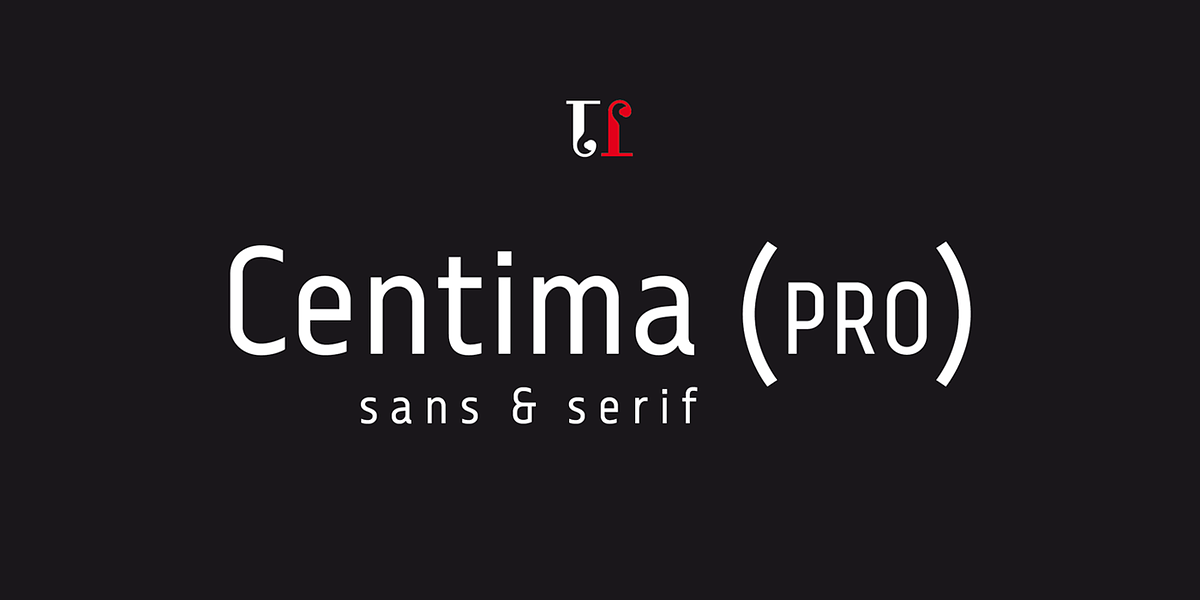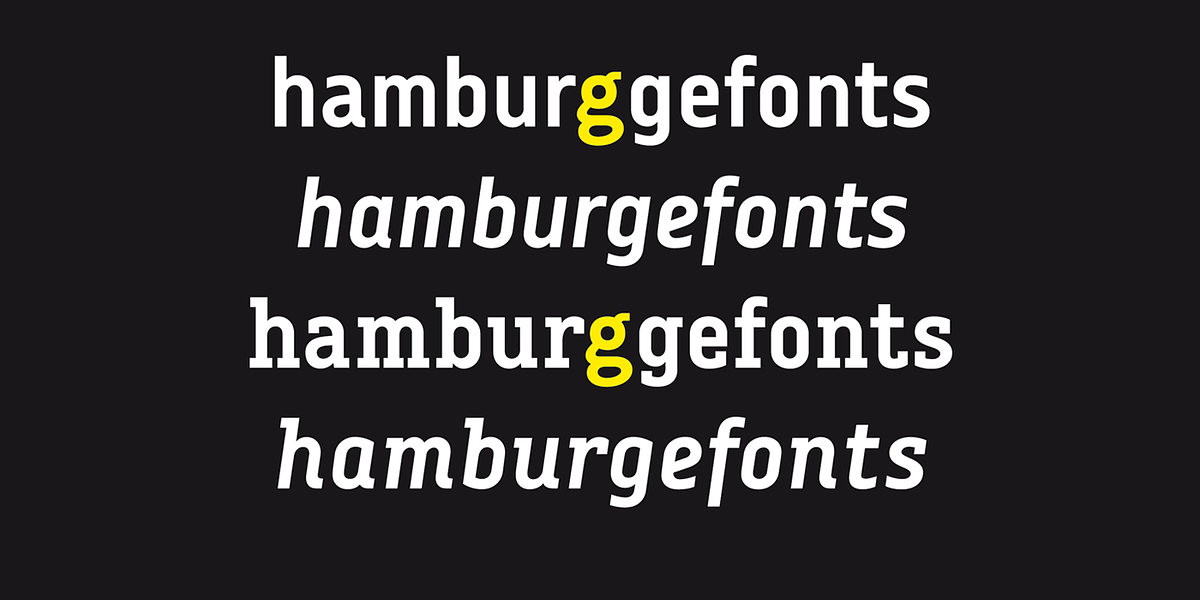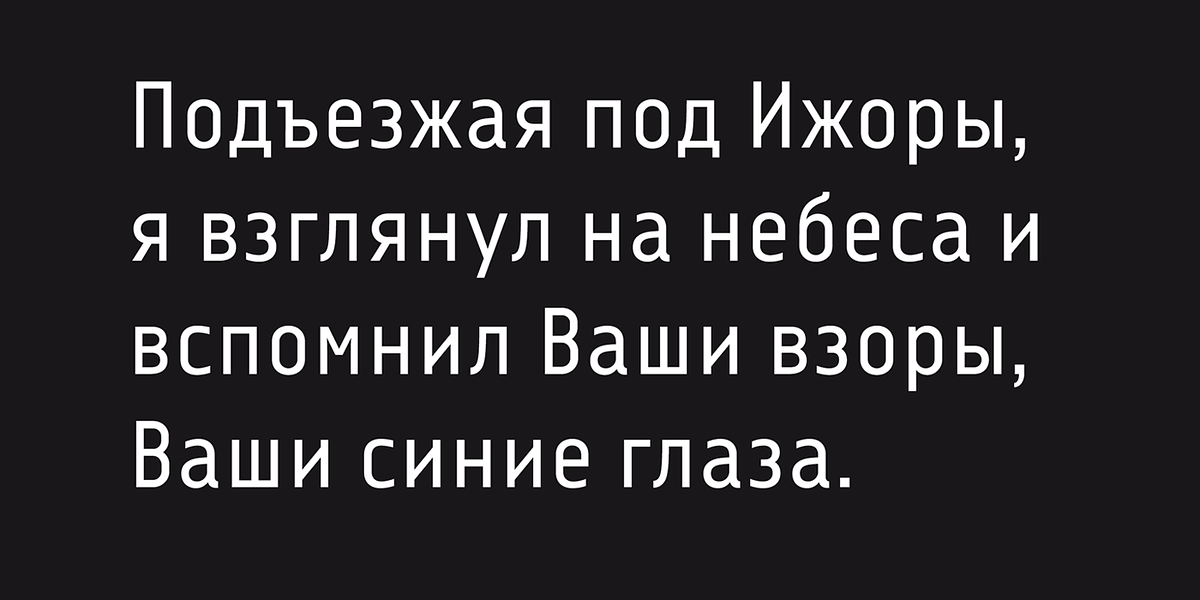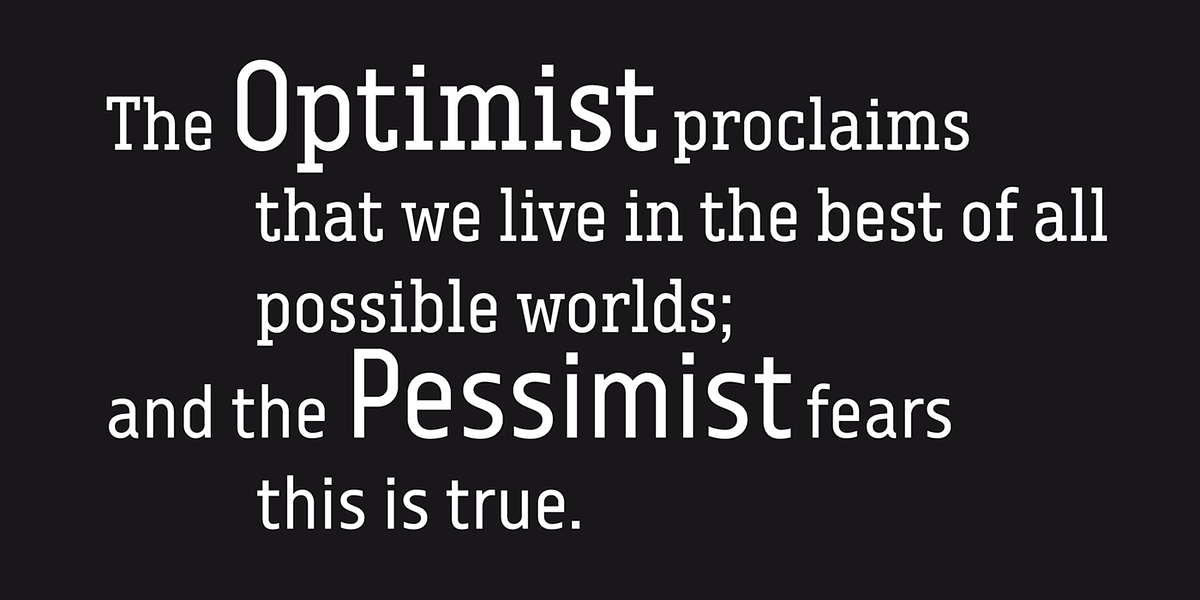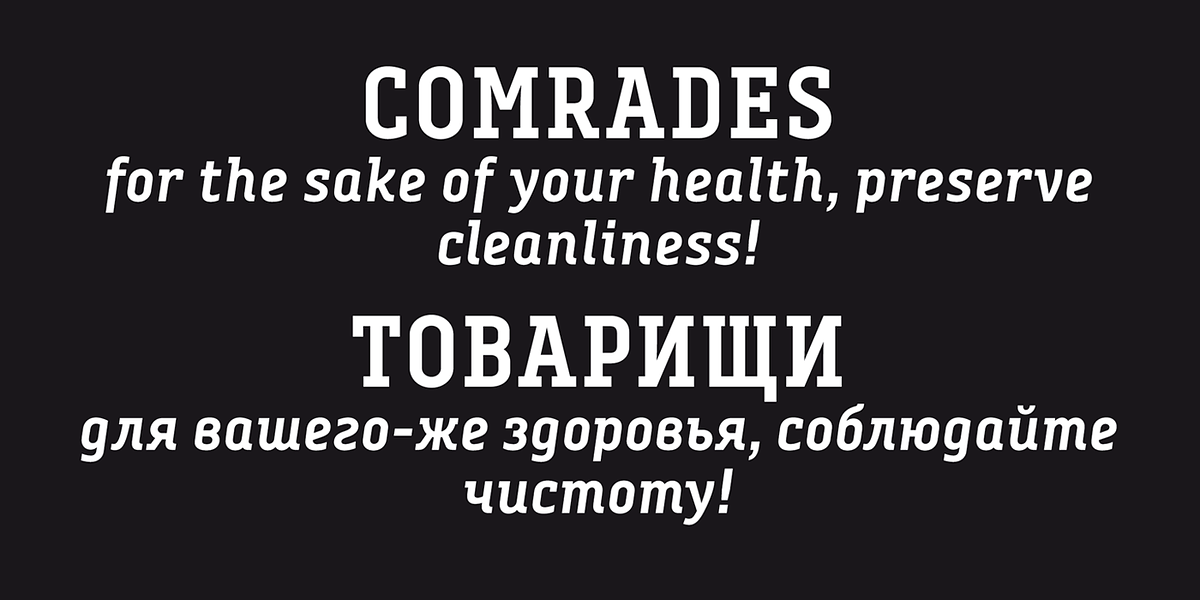
Centima Pro
Centima Pro is an updated version of the Centima typeface. It includes both sans serif and serif sub-families, offering a versatile range for design projects. The typeface features careful refinements to glyph shapes and extended character support, including Cyrillic languages. It is available in OpenType format with some OpenType features.